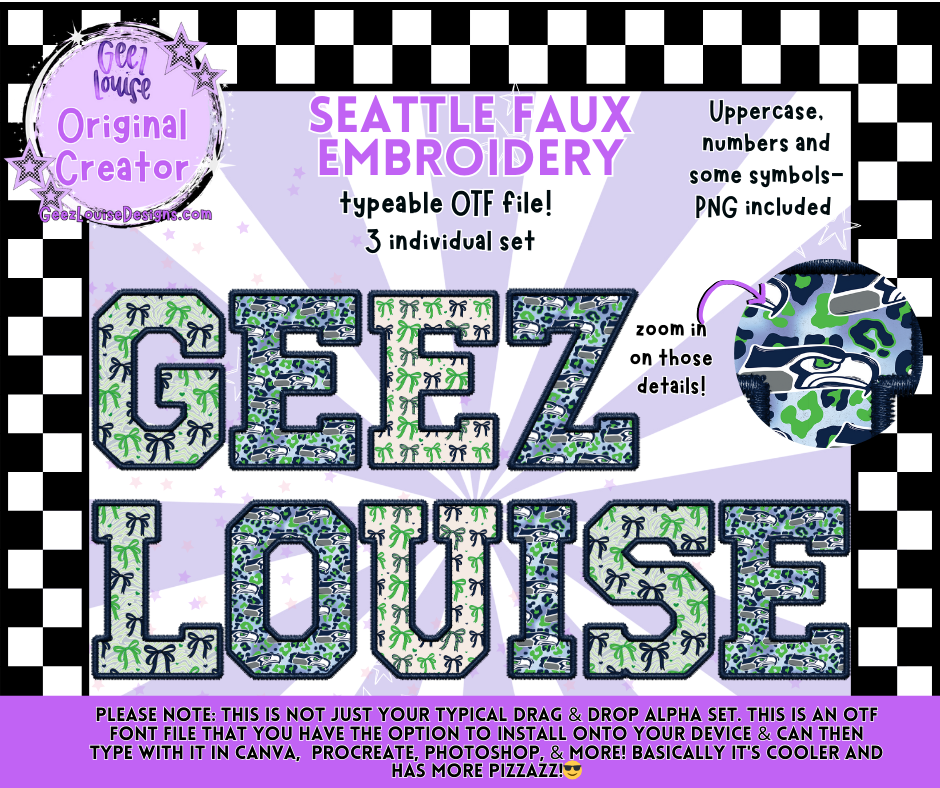
Seattle Faux Embroidery Alpha Typeable OTF Alpha Font + PNG Sets
Crank up the team spirit with the Seattle Faux Embroidery Alpha—a bold, stitched-up typeable OTF font that brings Seahawks vibes with texture, grit, and unapologetic flair.
🎨 Design Style
Deep blues, electric greens, and sporty stitch textures
Bold, playful, and full of personality
If you’re ready to ditch basic fonts and rep Seattle with stitched swagger, this alpha’s got your back.